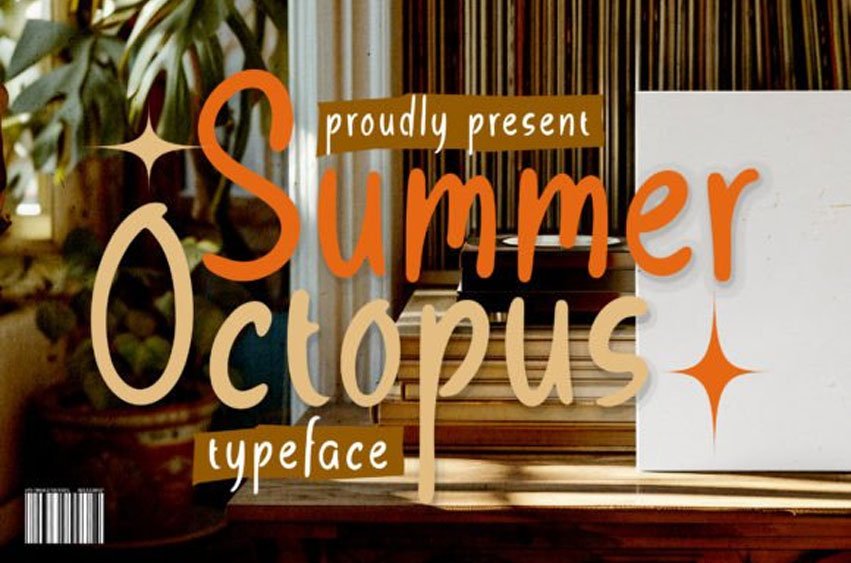
Summer Octopus Font Hand Written Typeface is a playful and creative font that looks like it was written by hand.
It has a fun, wavy style, making it perfect for summer-themed designs, casual invitations, and unique art projects. The letters are free-flowing and energetic, adding a lively and personal touch to your text.